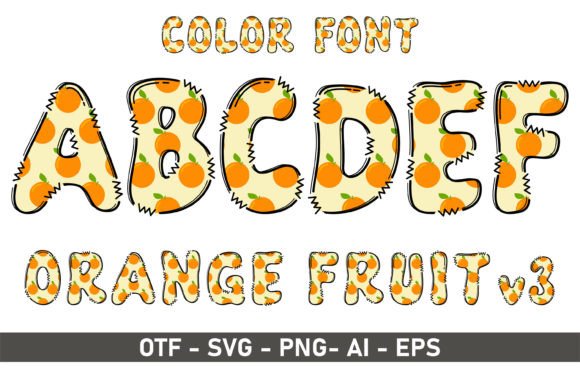
Swoosh in with style and sprinkle a dash of cheerful creativity onto your designs with the Orange V3 Font! Custom-crafted by the skilled hands of Veil, this vibrant font family bursts with charming hues, making it the perfect choice for captivating designs that exude a playful and joyful ambiance. Each stroke is brimming with character and a splash of whimsy, turning your creations into delightful visual treats.
Picture the covers of children's books adorning this exquisite font, immersing young readers in a magical world of imagination and adventure. Posters come alive with a vibrant energy, inviting you to engage with their messages. Invitations and greeting cards shimmer with a unique and captivating allure, spreading joy with every stroke. The possibilities are as endless as the colors that dance within this remarkable font family.
But wait, there's more! The Orange V3 Font isn't just a pretty face; it's a technological marvel too. Compatible with a universe of design platforms, from Photoshop to Illustrator, and even Silhouette and Inkscape, this font empowers you to unleash your creativity across all your favorite tools. Even better, this font is a color font (Opentype-SVG), bringing a symphony of colors to your designs. It's the perfect choice for adding a dash of vibrancy to your projects, whether you're designing for print or digital.
So, why settle for ordinary when you can embrace the extraordinary? Dive into the enchanting world of the Orange V3 Font and let your designs soar to new heights of imagination and joy. With its playful spirit and versatile charm, this font will transform your creations into captivating masterpieces that will leave an unforgettable impression. Get ready to add a burst of color and creativity to your design journey with the Orange V3 Font!